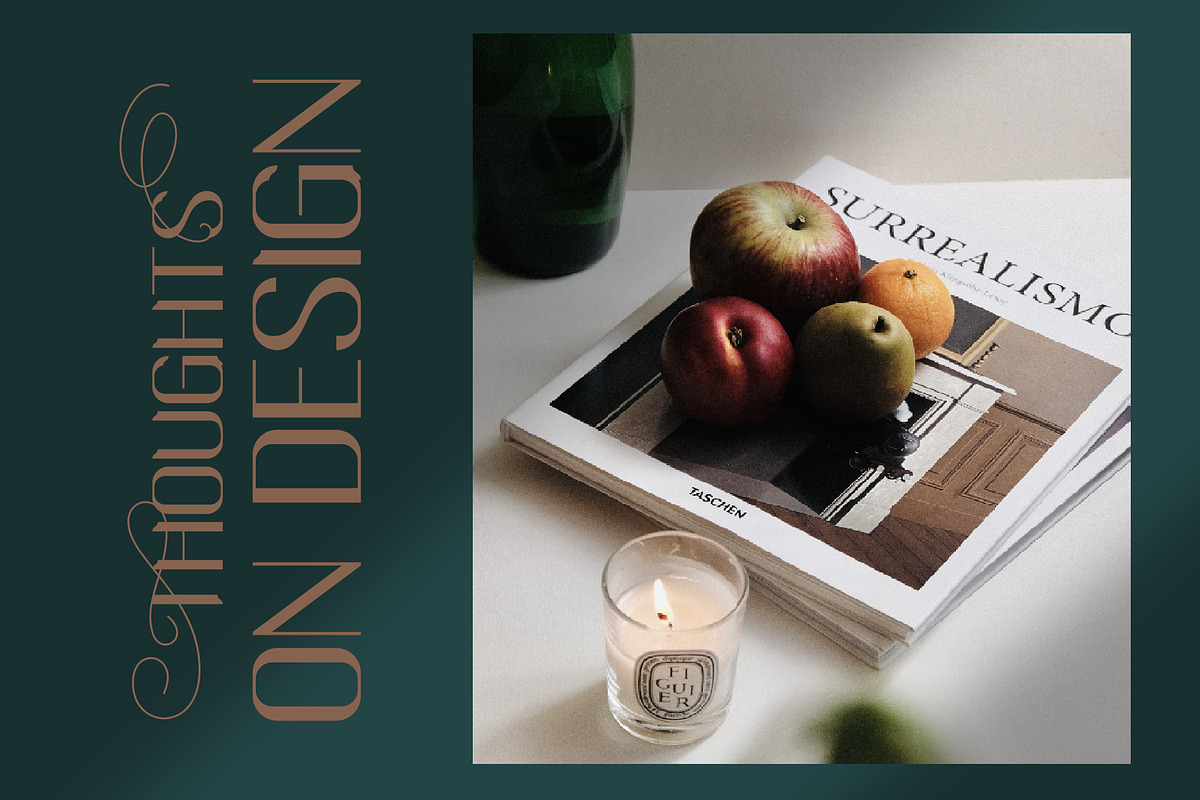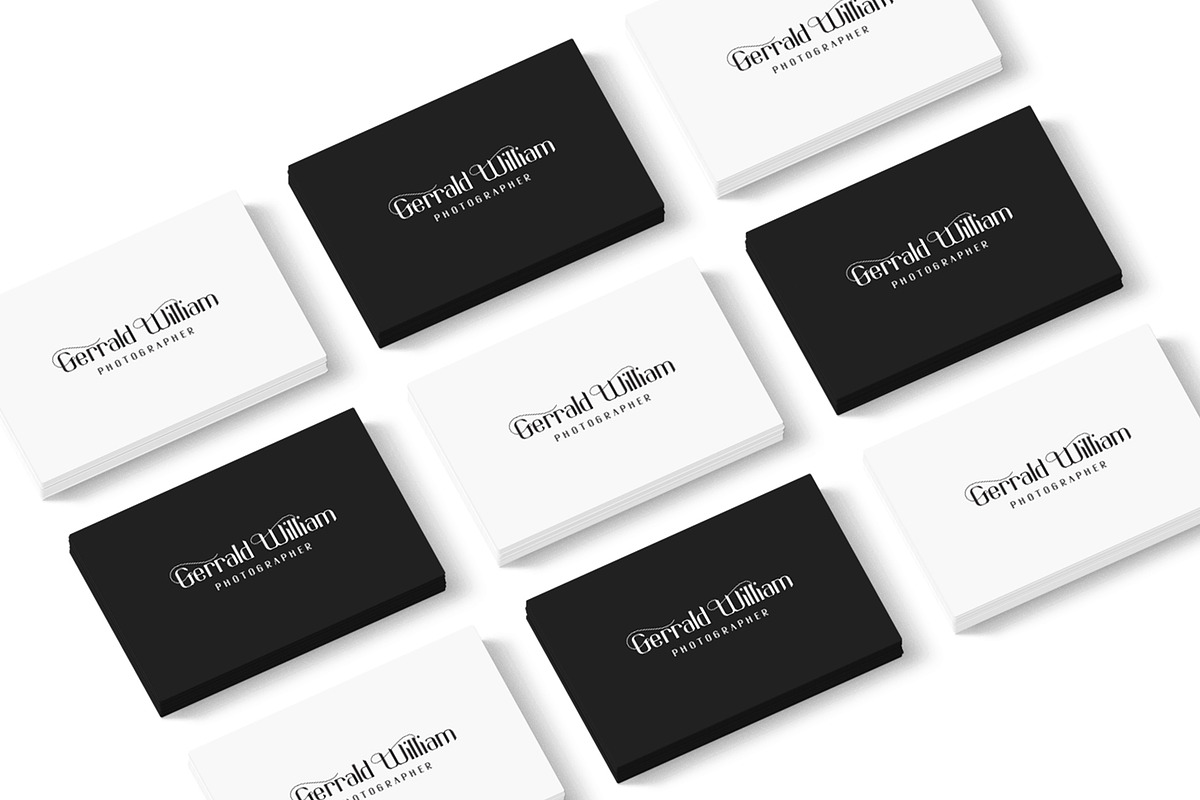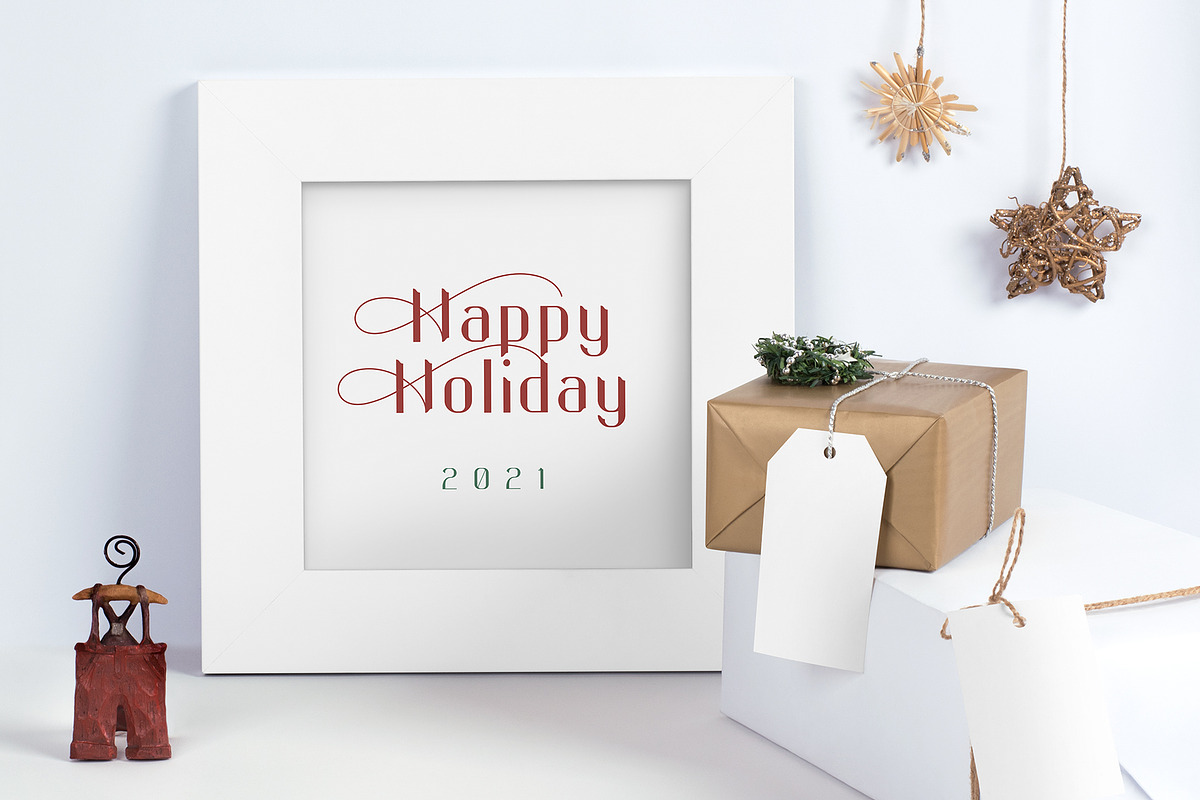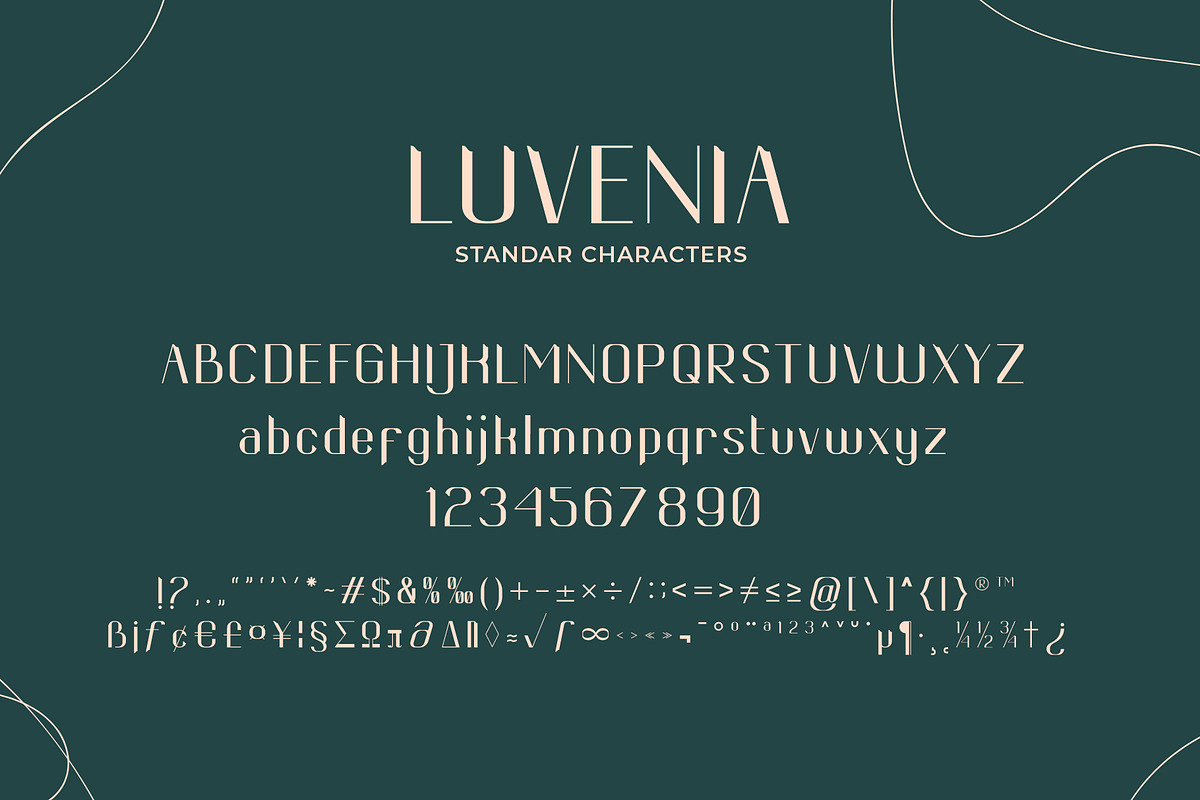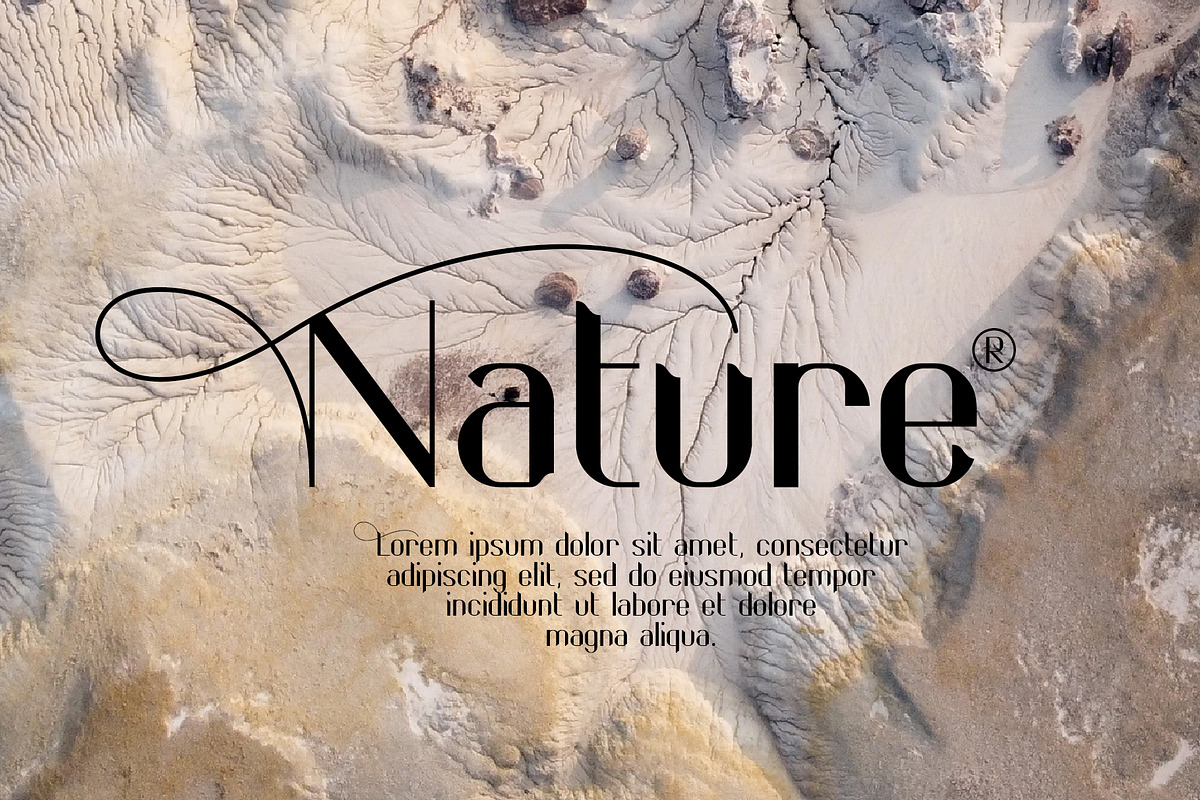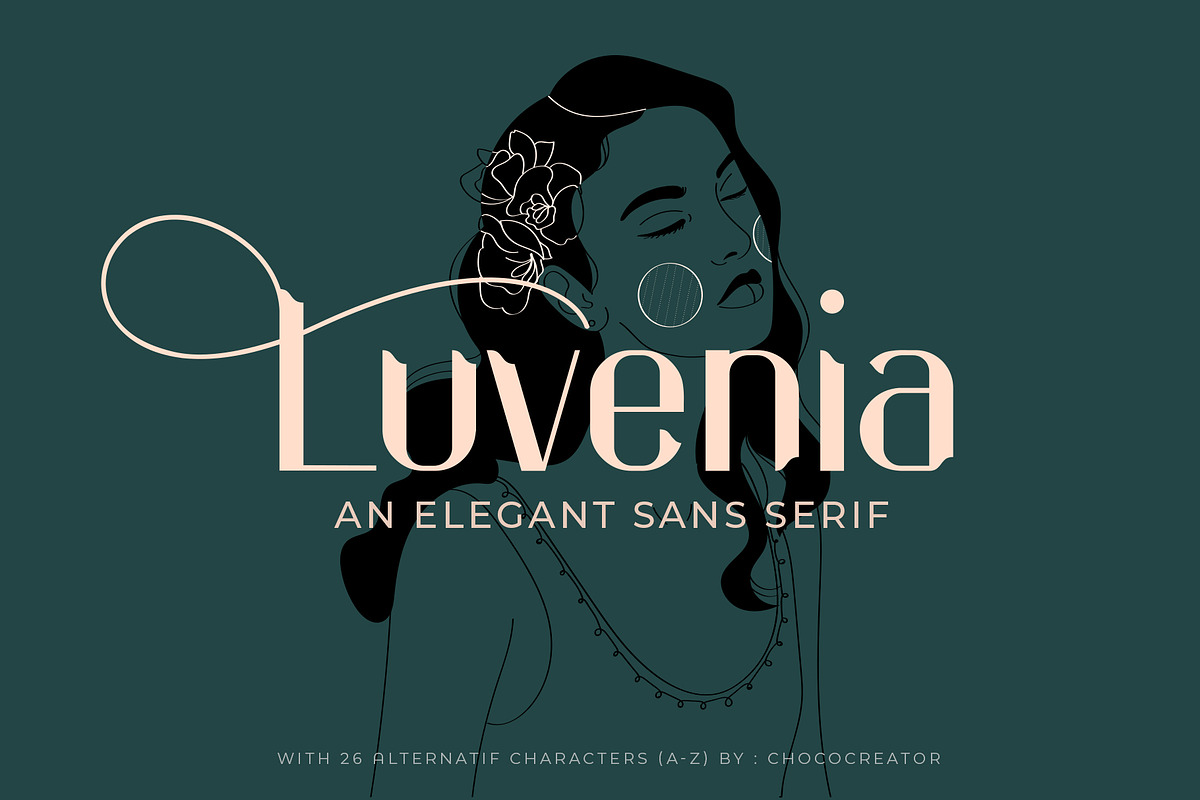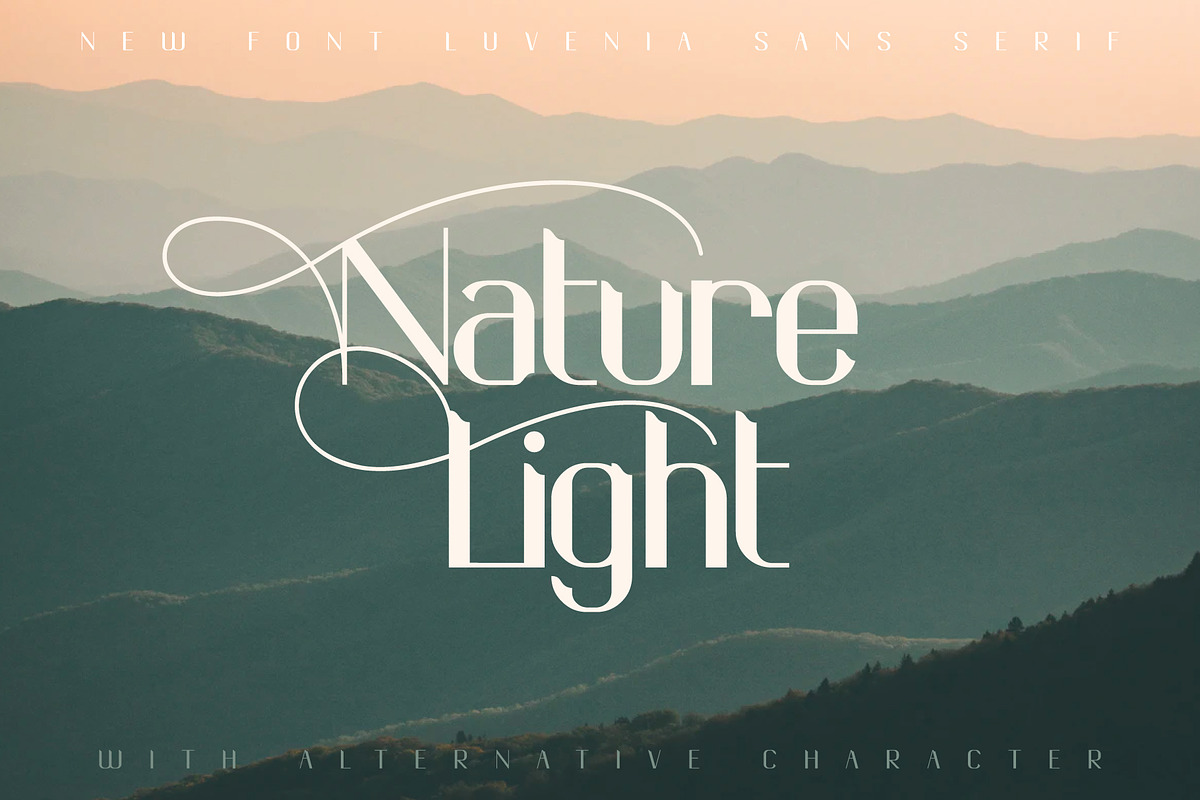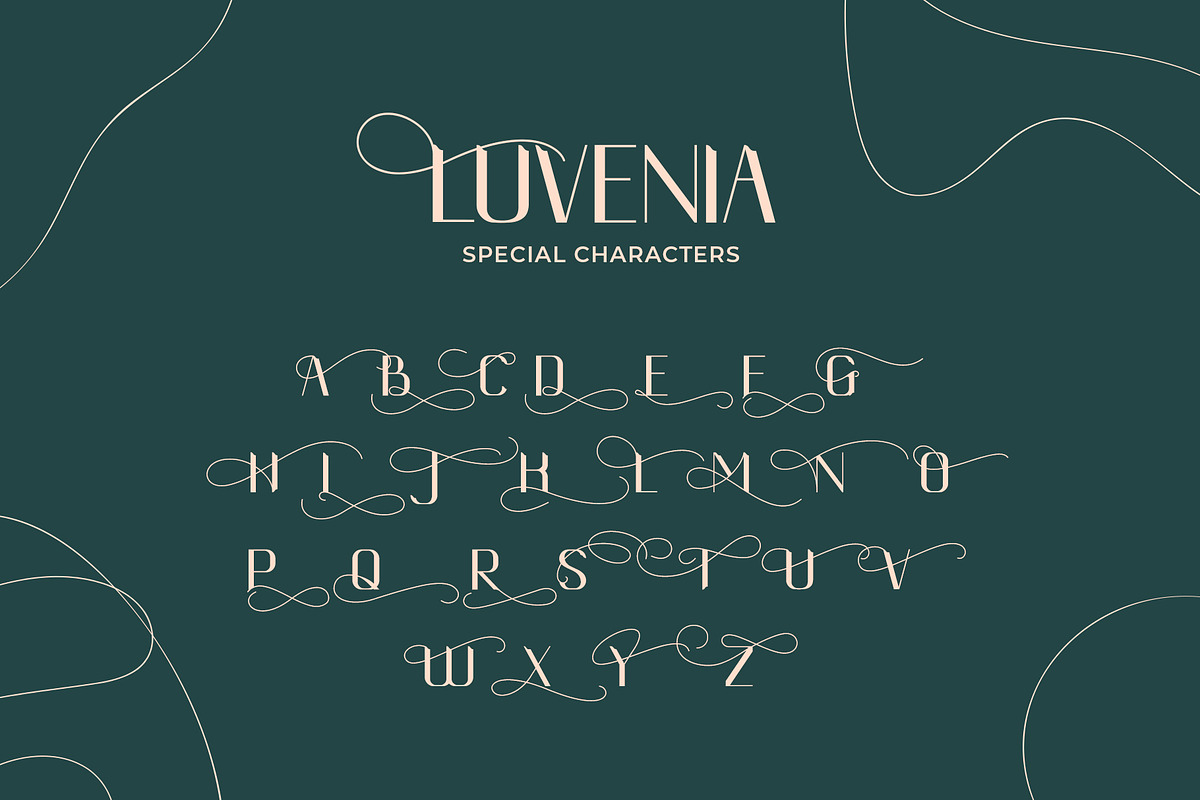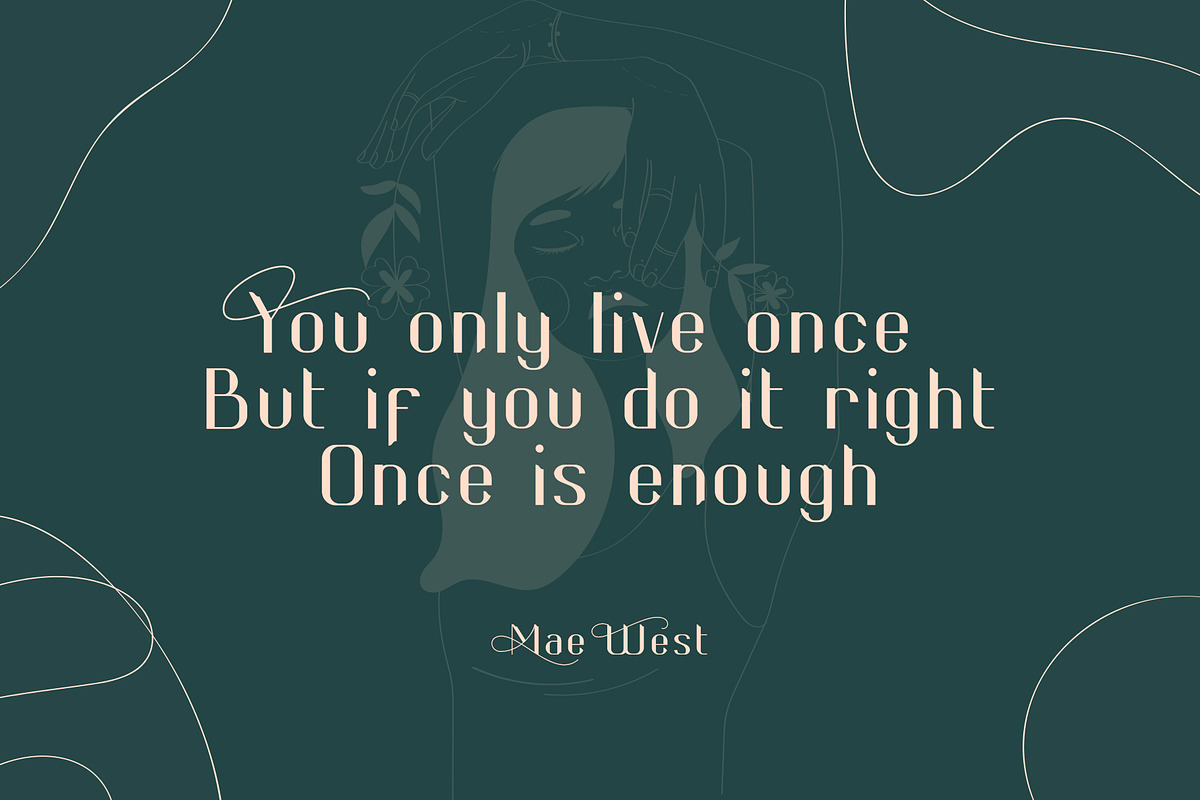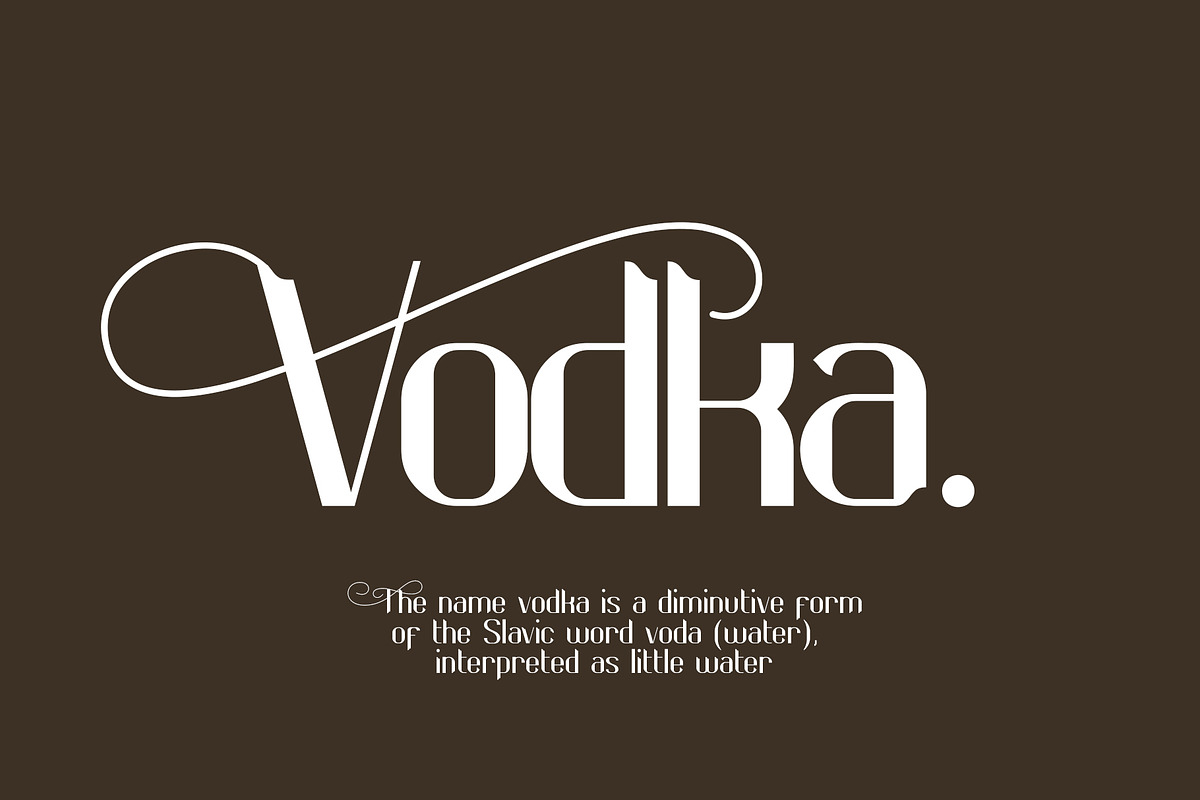
Luvenia sans serif modern
Luvenia Sans Serif is an Elegant Modern Minimalist font with beautiful character specials, lots of custom alternative glyphs, ornaments, and multilingual support. This is a very versatile font that works well in large and small sizes. Luvenia Sans Serif is perfect for branding projects, Logo designs, Clothing Branding, product packaging, magazine headers, or just as a stylish text overlay for any background image.
- 26 alternative characters
Multiple Languages Supported